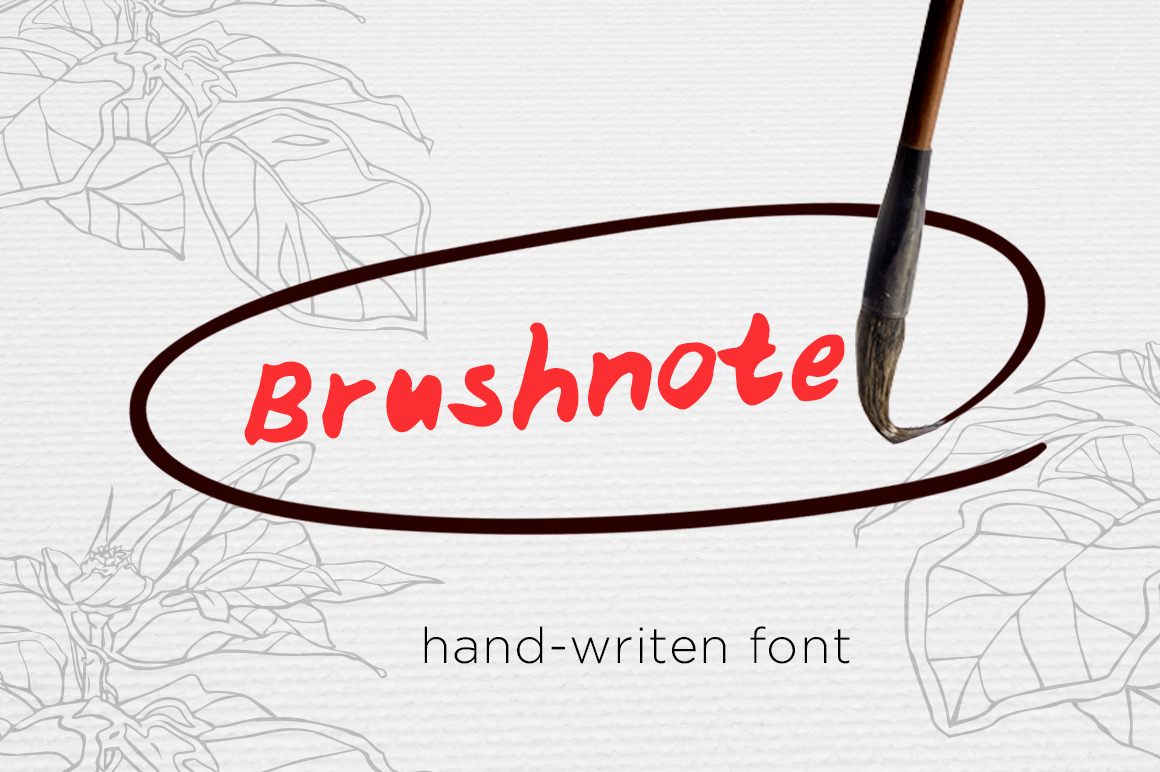
Brushnote font
Hand-written sans-serif brush font, perfect for creating trendy designs and bold stand-out layouts.
Use this font for art prints, cards, craft projects & packaging, love notes, bold headings, clothing labels..etc.